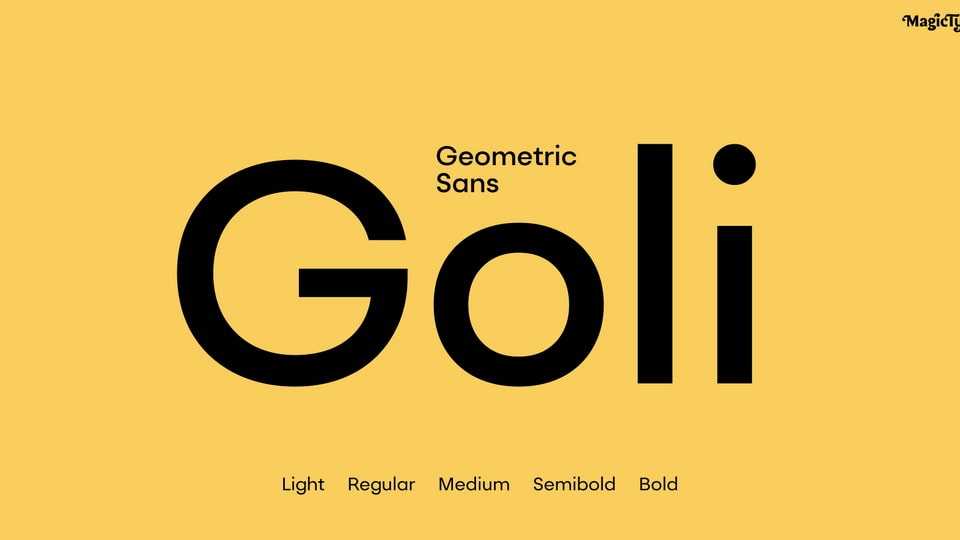
Download Goli font, a low-contrast geometric typeface. Glyphs have large x-height, higher ascenders than the cap height, vertical and horizontal sharp cuts at the terminals and optically corrected geometric closed counters.
Designer: MagicType